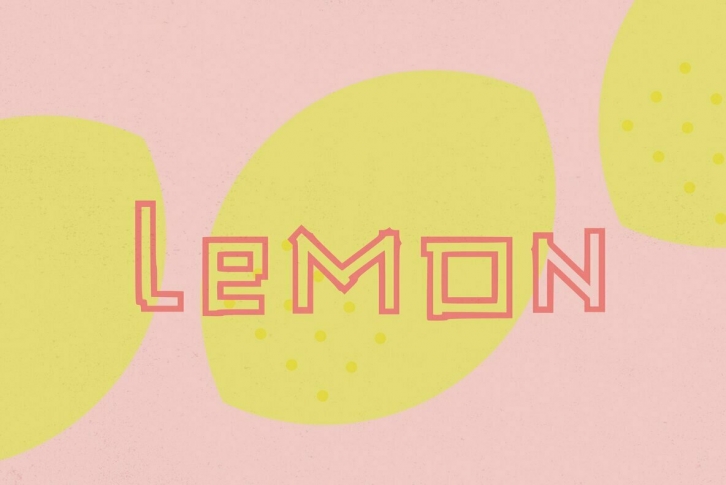
Pass the tape! Like bits of sticky tape layered together to make a full upper and lower case alphabet (including numbers and some punctuation) all put together for a fun, quirky font.